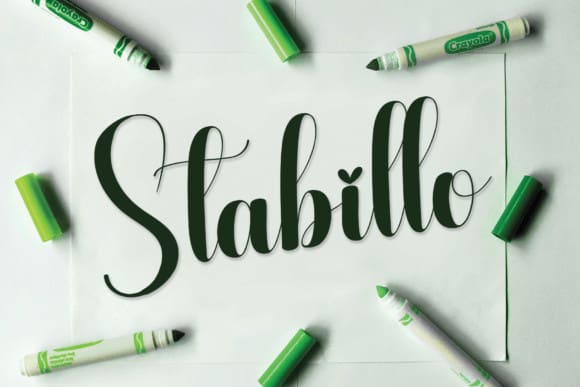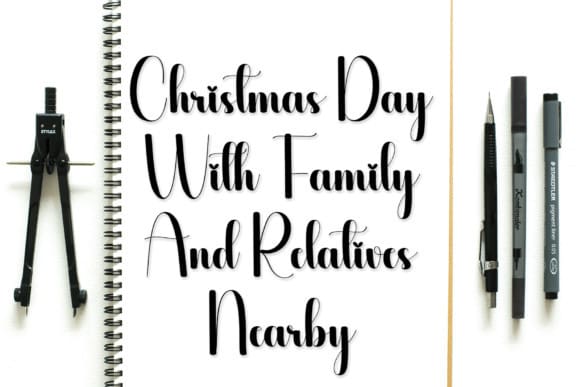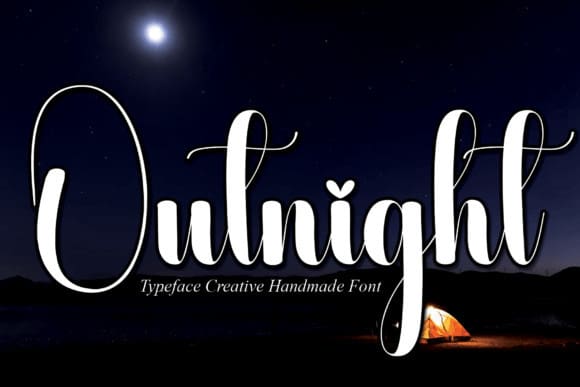
Outnight Script Font
Outnight Script Font is a flowing handwritten font, described by an elegant touch, perfect for your favorite projects. Fall in love with its incredibly distinct and timeless style and use it to create spectacular designs!